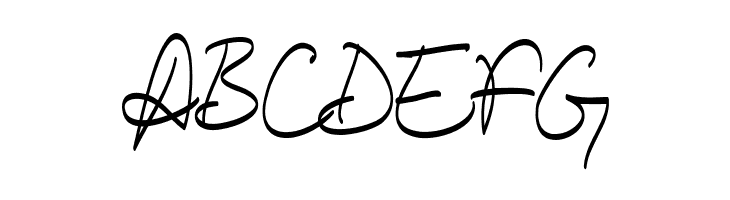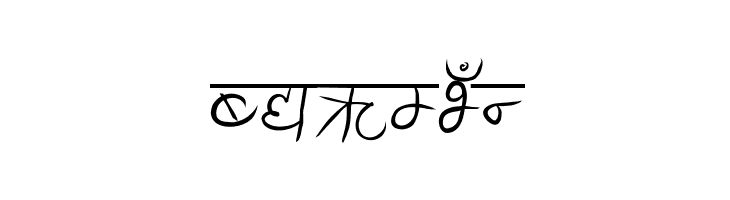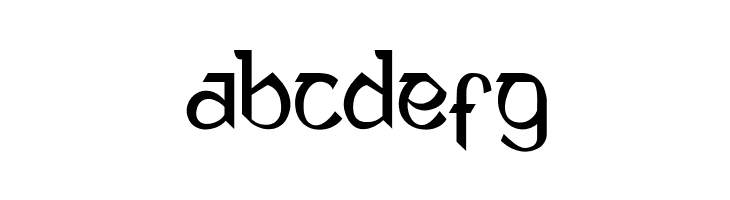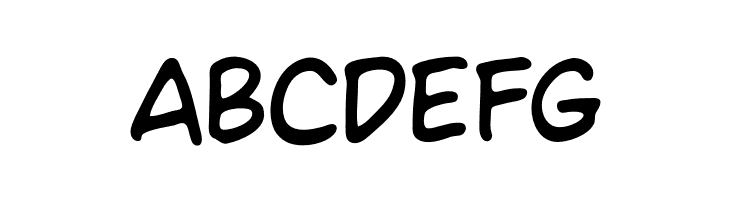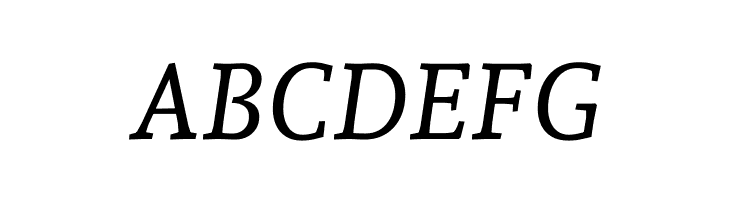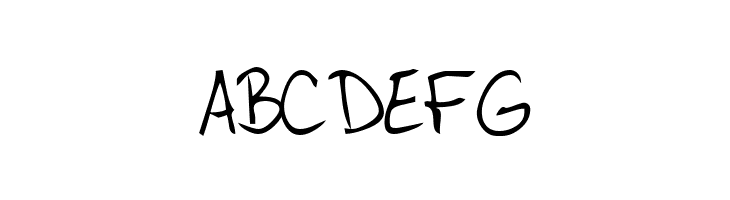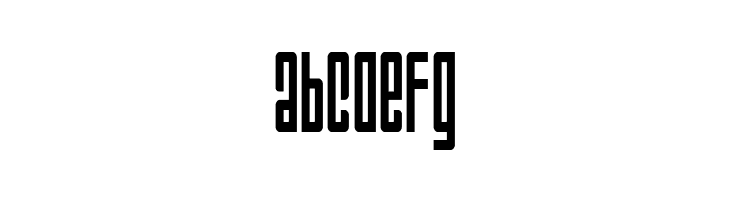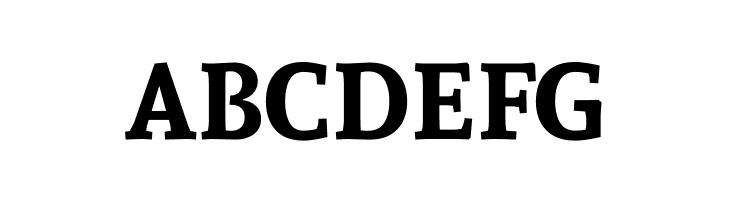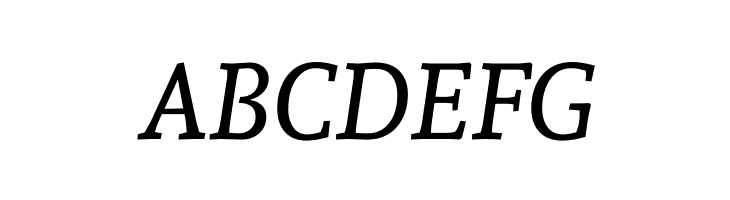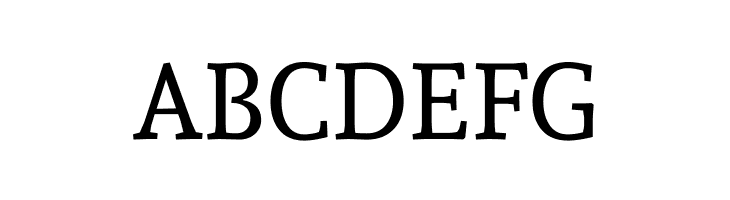
A playful, handwritten font with rounded edges and a casual style.
A classic serif font with elegant proportions and subtle contrast.
A classic serif font with elegant strokes and refined design.
A sleek, modern font with thin lines and geometric shapes.
A bold, geometric font with sharp angles and a futuristic feel.
A bold, geometric font with sharp angles and a modern, artistic style.
A decorative font with intricate, culturally inspired illustrations replacing traditional letterforms.
A traditional script font with elegant, flowing curves and dynamic strokes.
A bold, expressive script font with dynamic strokes and a traditional yet modern appeal.
A lively, expressive handwritten font with fluid, interconnected strokes.
A modern serif font with sharp angles and geometric shapes.
A bold, geometric font with a strong, modern presence.
A bold, Art Deco-inspired font with geometric shapes and sharp angles.
A bold, Art Deco-inspired font with geometric shapes and high contrast.
Pictorial, decorative font based on ancient Egyptian hieroglyphs.
An ornate, historical font with intricate decorative elements and a vertical emphasis.
A bold, textured font with a vintage, rugged appearance.
A modern serif font with elegant curves and balanced stroke contrast.
A bold, modern serif font with strong, confident letterforms.
A bold serif font with a classic yet modern appeal, ideal for impactful designs.
A bold, italic serif font with a modern yet classic appeal.
An elegant italic serif font with a classic yet contemporary style.
Elegant serif font with a classic italic slant and moderate contrast.
Elegant serif italic font with moderate contrast and classic styling.
A classic serif typeface with modern elegance and excellent readability.
A classic serif font with modern elegance and medium contrast.
A bold serif font with strong, classic features and excellent readability.
Bold, italic serif font with medium contrast and classic elegance.
A classic serif font with a modern italic style and moderate stroke contrast.
An abstract, artistic font with intricate, swirling designs.